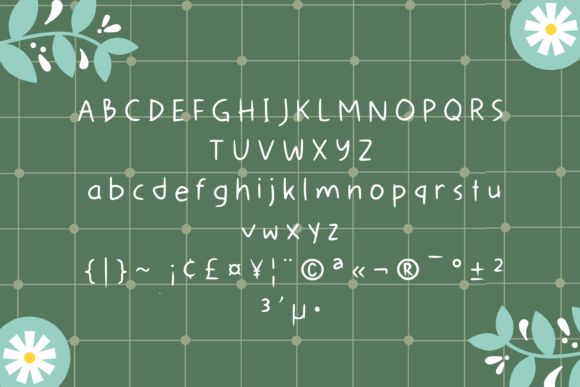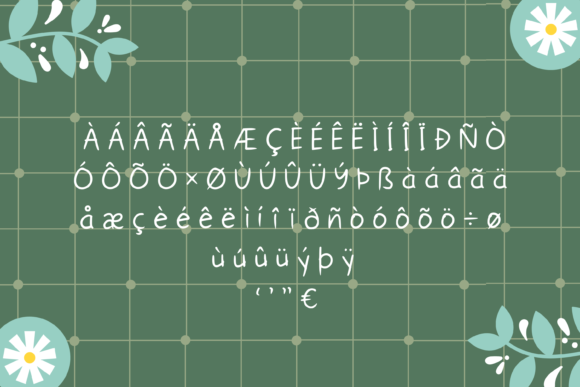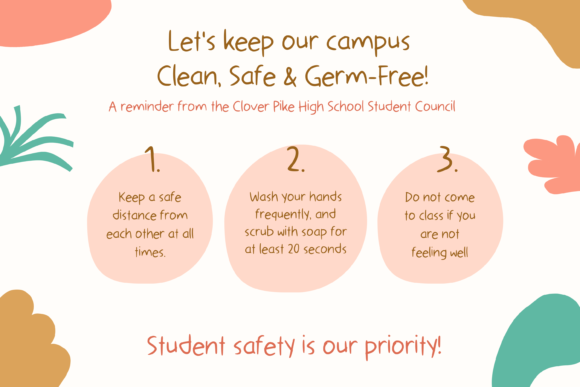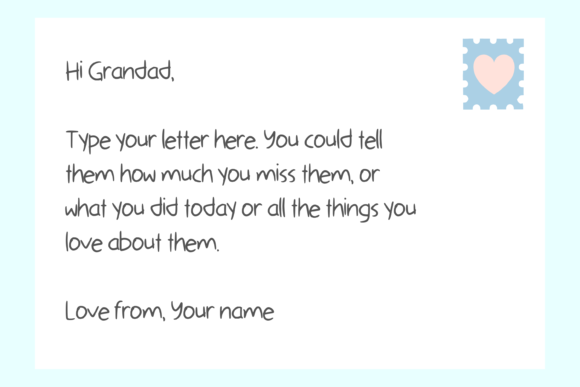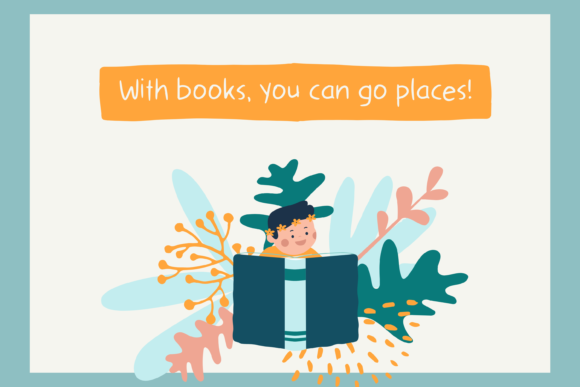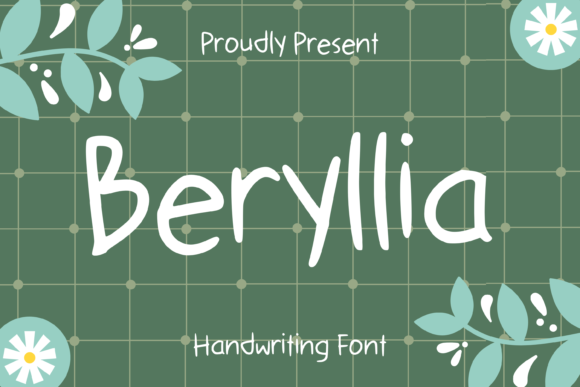
Beryllia Font: The Cute and Friendly Handwritten Font for Your Design Needs
Are you a designer or crafter looking for a font that can add a personal touch to your projects? Look no further than Beryllia, a cute and friendly handwritten font that’s perfect for a wide range of designs. With its natural and unique style, Beryllia is incredibly versatile and can be used in various creative projects, from digital designs to handmade crafts.
What Makes Beryllia Font So Special?
Beryllia font is a one-of-a-kind handwritten font that’s designed to bring a touch of warmth and personality to your designs. Its natural and unique style makes it stand out from other fonts, and its friendly vibe is sure to capture the hearts of your audience. Whether you’re creating a logo, a poster, a social media graphic, or a handmade craft, Beryllia font is the perfect choice.
Key Features of Beryllia Font
• Cute and Friendly: Beryllia font has a playful and approachable vibe that’s perfect for designs that need a personal touch.
• Natural and Unique: Beryllia font has a distinctive style that’s both natural and unique, making it perfect for designs that need to stand out.
• Versatile: Beryllia font can be used in a wide range of designs, from digital designs to handmade crafts.
• Easy to Read: Beryllia font is clear and easy to read, making it perfect for designs that need to communicate a message.
How to Use Beryllia Font in Your Designs
Beryllia font is incredibly easy to use, and its versatility makes it perfect for a wide range of designs. Here are some ideas to get you started:
• Digital Designs: Use Beryllia font in your digital designs, such as social media graphics, blog posts, and email newsletters.
• Handmade Crafts: Beryllia font is perfect for handmade crafts, such as card making, scrapbooking, and journaling.
• Logos and Branding: Use Beryllia font to create a unique and memorable logo or brand identity.
• Posters and Flyers: Beryllia font is perfect for creating eye-catching posters and flyers.
Why Designers and Crafters Love Beryllia Font
Designers and crafters love Beryllia font for its unique and versatile style. Here are some reasons why:
• High-Quality: Beryllia font is a high-quality font that’s designed to produce clear and crisp results.
• Unique Style: Beryllia font has a unique style that’s sure to make your designs stand out.
Tips and Tricks for Using Beryllia Font
Here are some tips and tricks for using Beryllia font in your designs:
• Experiment with Sizes: Experiment with different font sizes to find the perfect size for your design.
• Pair with Other Fonts: Pair Beryllia font with other fonts to create a unique and interesting contrast.
• Use in Combination with Images: Use Beryllia font in combination with images to create a visually appealing design.
• Make it Your Own: Don’t be afraid to make Beryllia font your own by adding your own personal touch.
Beryllia font is a cute and friendly handwritten font that’s perfect for designers and crafters who need a unique and versatile font for their projects. With its natural and unique style, Beryllia font is incredibly fitting to a large pool of designs, and the only limit is your imagination! So why not give Beryllia font a try and see how it can elevate your designs to the next level?